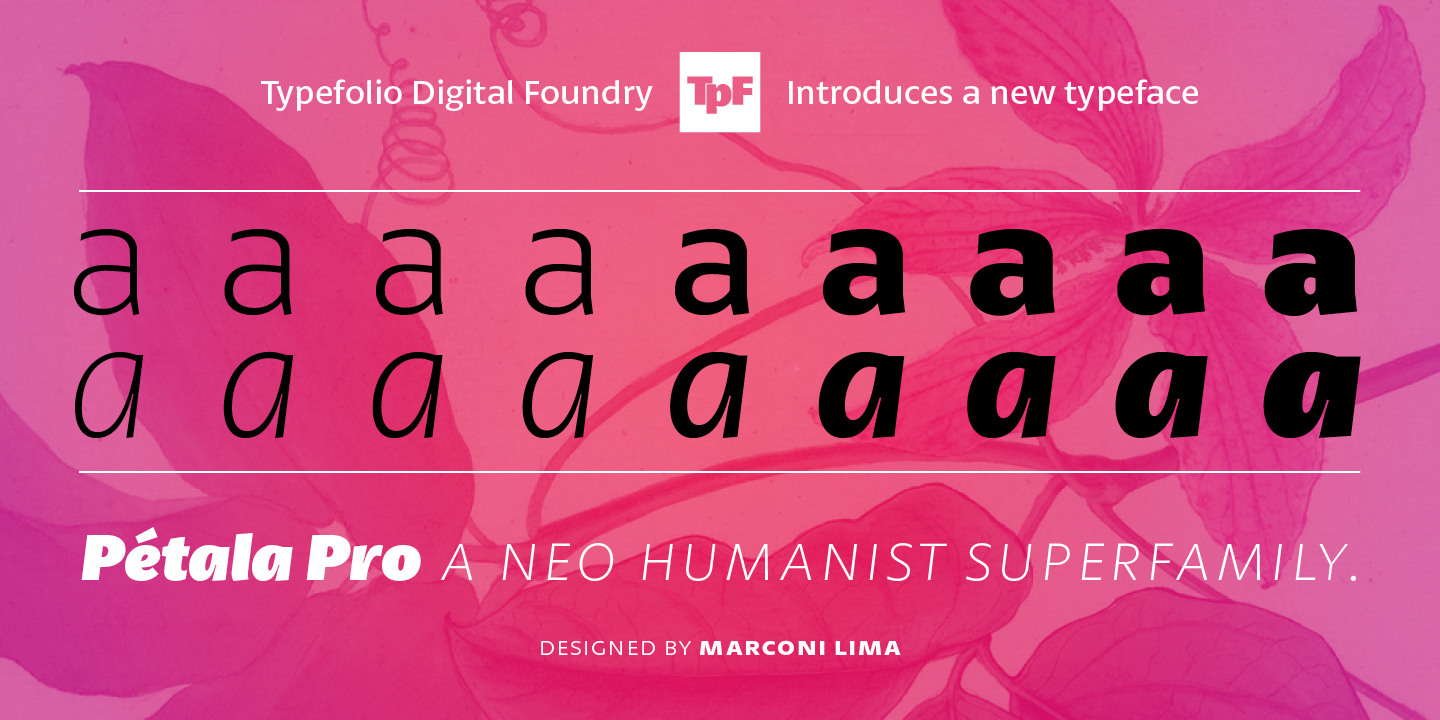
Petala Pro Font is perfect for luxury floral design studios, premium botanical gardens, elegant wedding planners, sophisticated perfume brands, high-end spa and wellness centers, refined natural cosmetics, exclusive flower arrangements, and delicate feminine luxury communications.
What makes Petala Pro Font truly exciting is its exquisite ability to embody the delicate beauty and natural elegance of flower petals through gracefully refined letterforms that capture the soft sophistication and organic grace of premium botanical artistry. This enchanting typeface features flowing characteristics with subtle petal-inspired elements that instantly convey natural luxury, feminine sophistication, and organic elegance, making it the perfect choice for luxury brands celebrating natural beauty, creating premium floral experiences, and communicating with discerning audiences who appreciate the refined artistry and delicate sophistication of high-end botanical design and feminine luxury aesthetics.
The Petala Pro Font family encompasses ultra-light, light, regular, medium, bold, and elegant script variations, complemented by botanical ornaments and floral alternates that enhance the luxurious natural atmosphere, providing designers with comprehensive tools for creating premium botanical brand experiences and sophisticated communications that resonate with luxury-minded audiences seeking refined natural beauty and feminine elegance.
Luxury floral brands and premium wellness companies will discover that Petala Pro Font Free Download transforms ordinary messaging into sophisticated expressions of natural luxury that attract discerning clientele who appreciate exceptional botanical artistry and refined aesthetic experiences. This versatile typeface excels in both intimate luxury applications and grand floral installations, maintaining its delicate character while delivering maximum elegance across all premium botanical contexts.
The font's elegantly crafted construction demonstrates exceptional attention to both natural grace and luxury market appeal, with delicately balanced proportions that ensure sophisticated presence while maintaining superior readability in premium environments. From luxury perfume packaging to high-end wedding invitations, this refined typeface maintains its botanical sophistication while providing the versatility needed for comprehensive luxury brand systems. Premium natural brands appreciate how this font effortlessly communicates delicate beauty, natural luxury, and distinguished American botanical design excellence through superior petal-inspired typography.